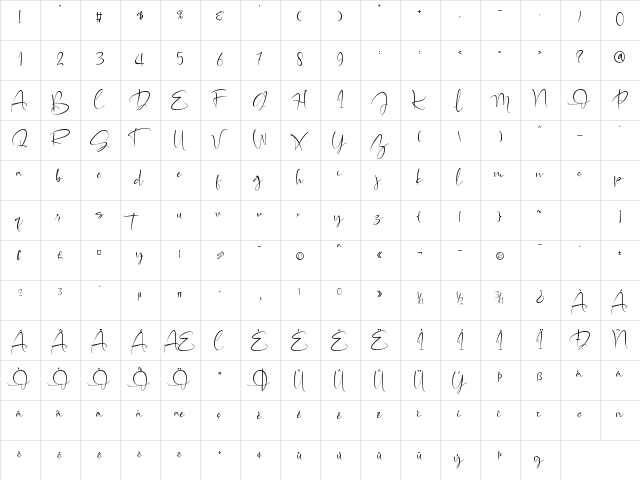
Alleffra Regular
Design Context for Alleffra Typeface
Alleffra is a composed and adaptable typeface that performs quietly and consistently across a wide range of design contexts.